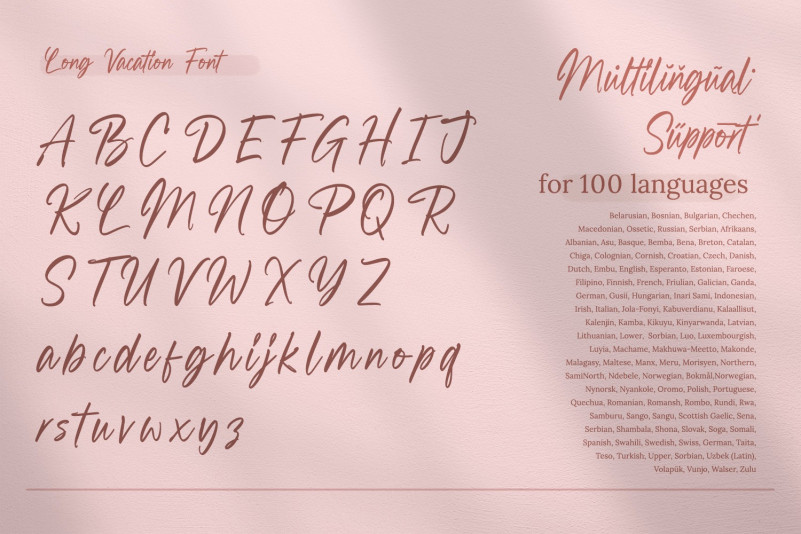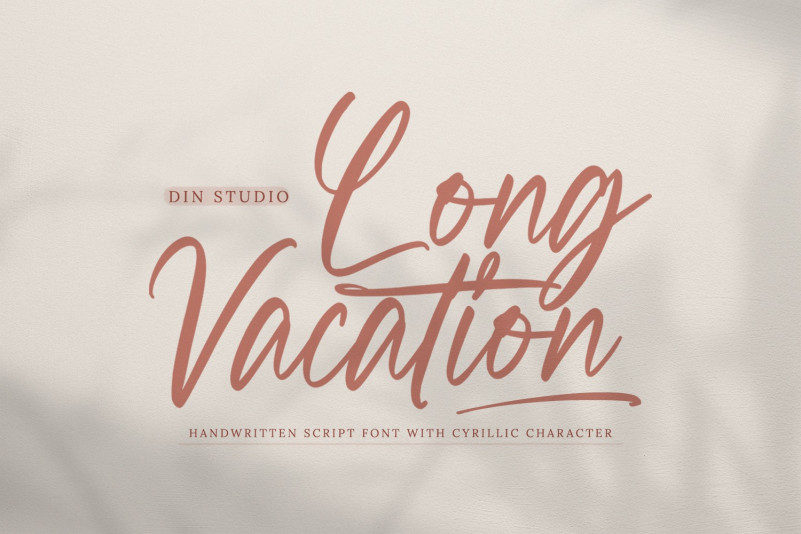
Long Vacation Font
This is Long Vacation Script Font , our new handwritten font, ideal for all of your design needs.
Long Vacation is a visually interesting handwritten font showing a unique handwriting style giving the natural, lovely nuances on your designs. The flowing letters are interconnected and the scratches that connect the letters make the font look more natural. Details on each letter and curves on the edges show high contrasts. Due to its great legibility, you can apply this font to both big and small text sizes. Additionally, enjoy the features available here.